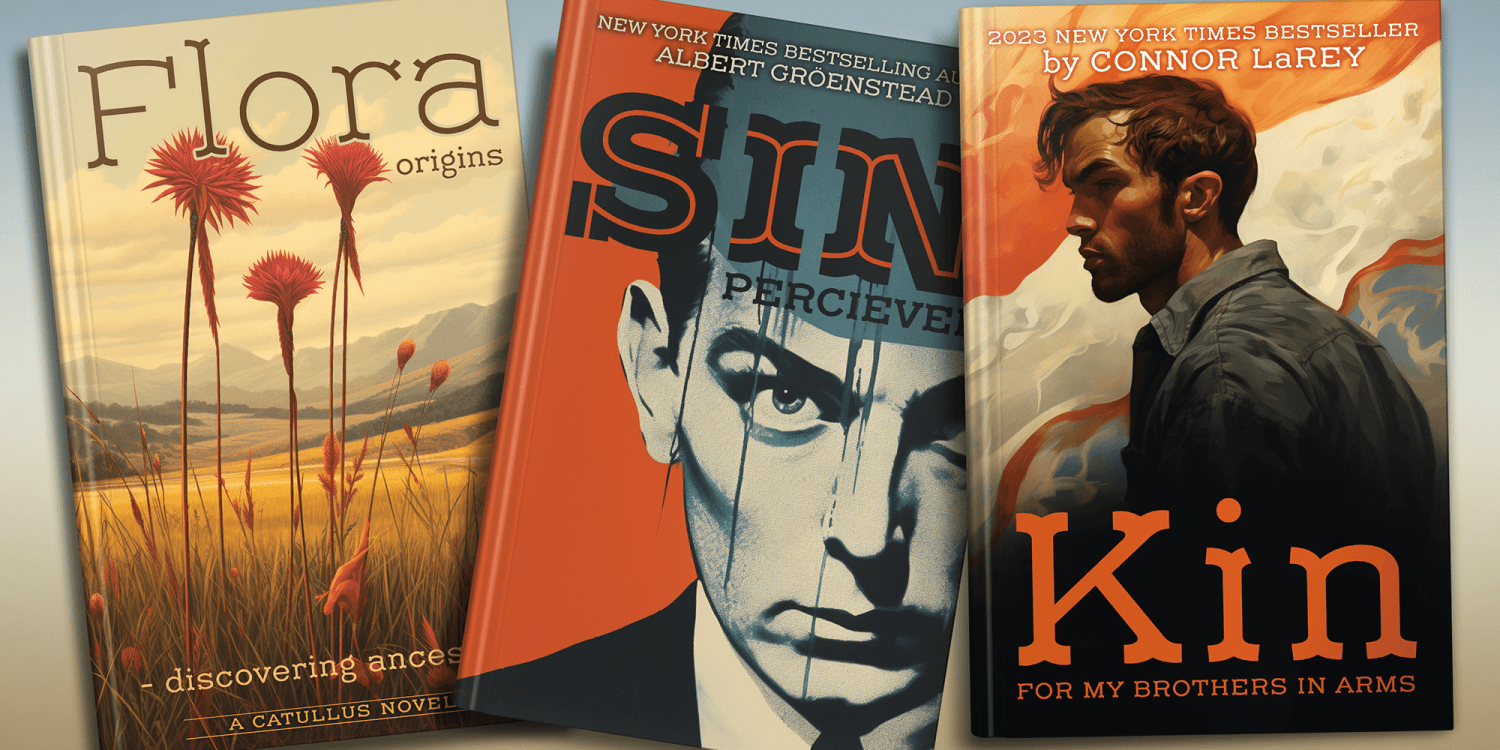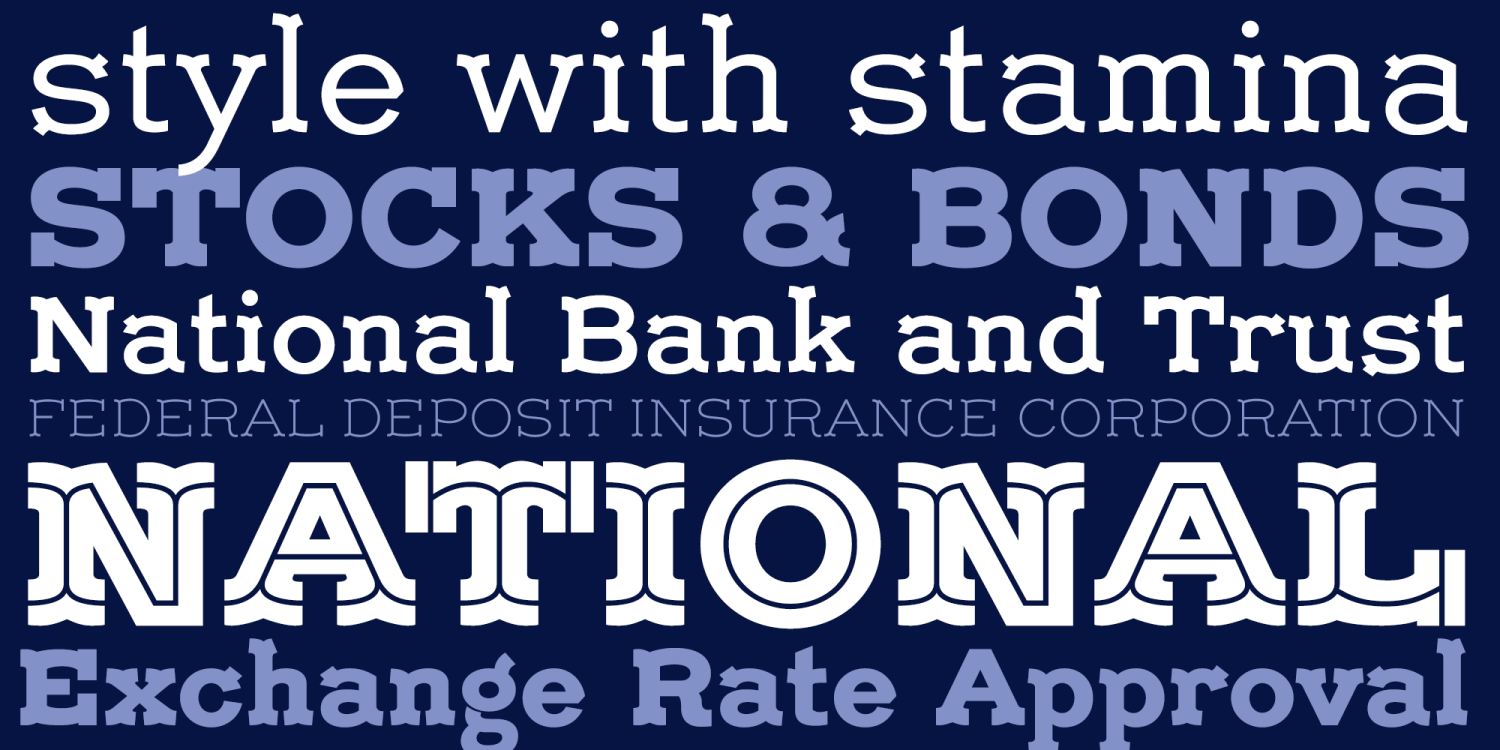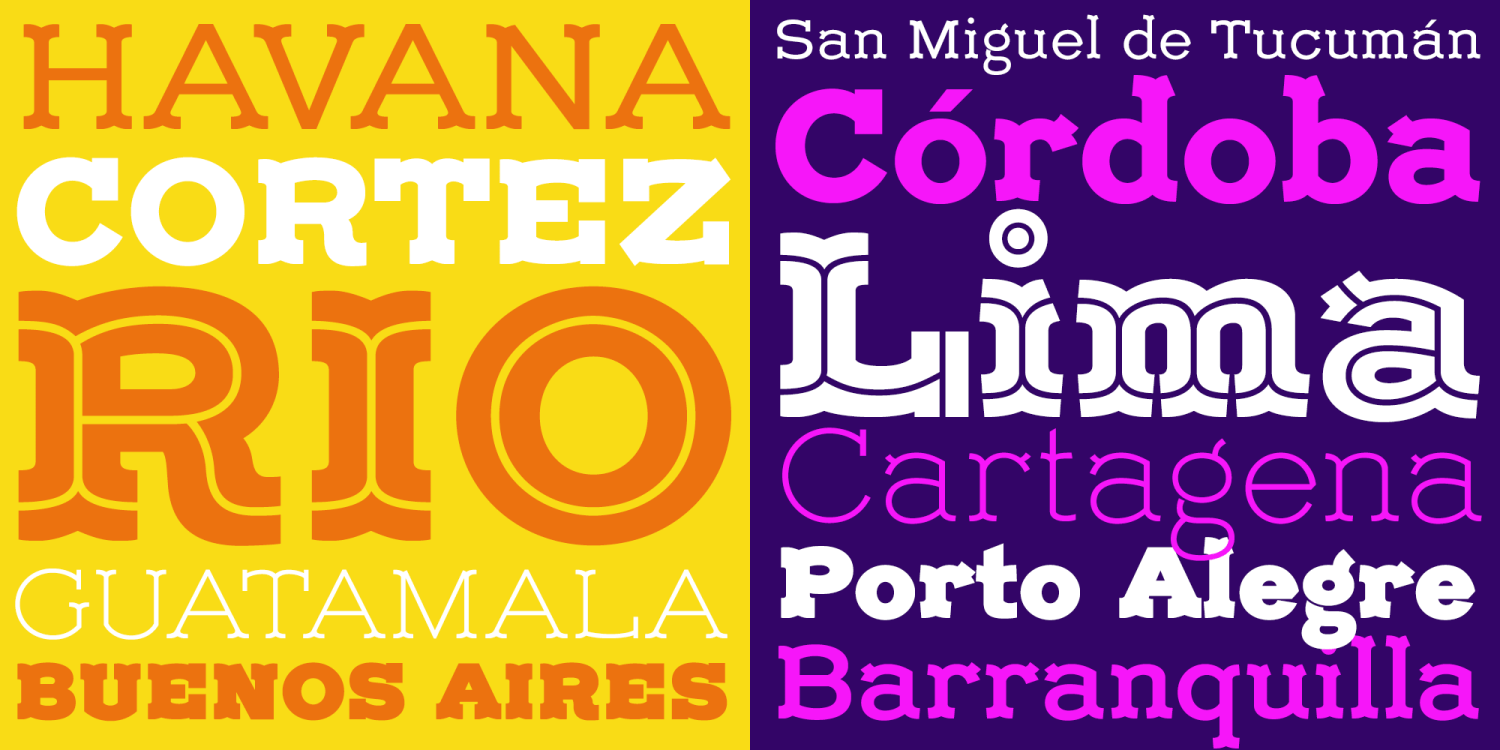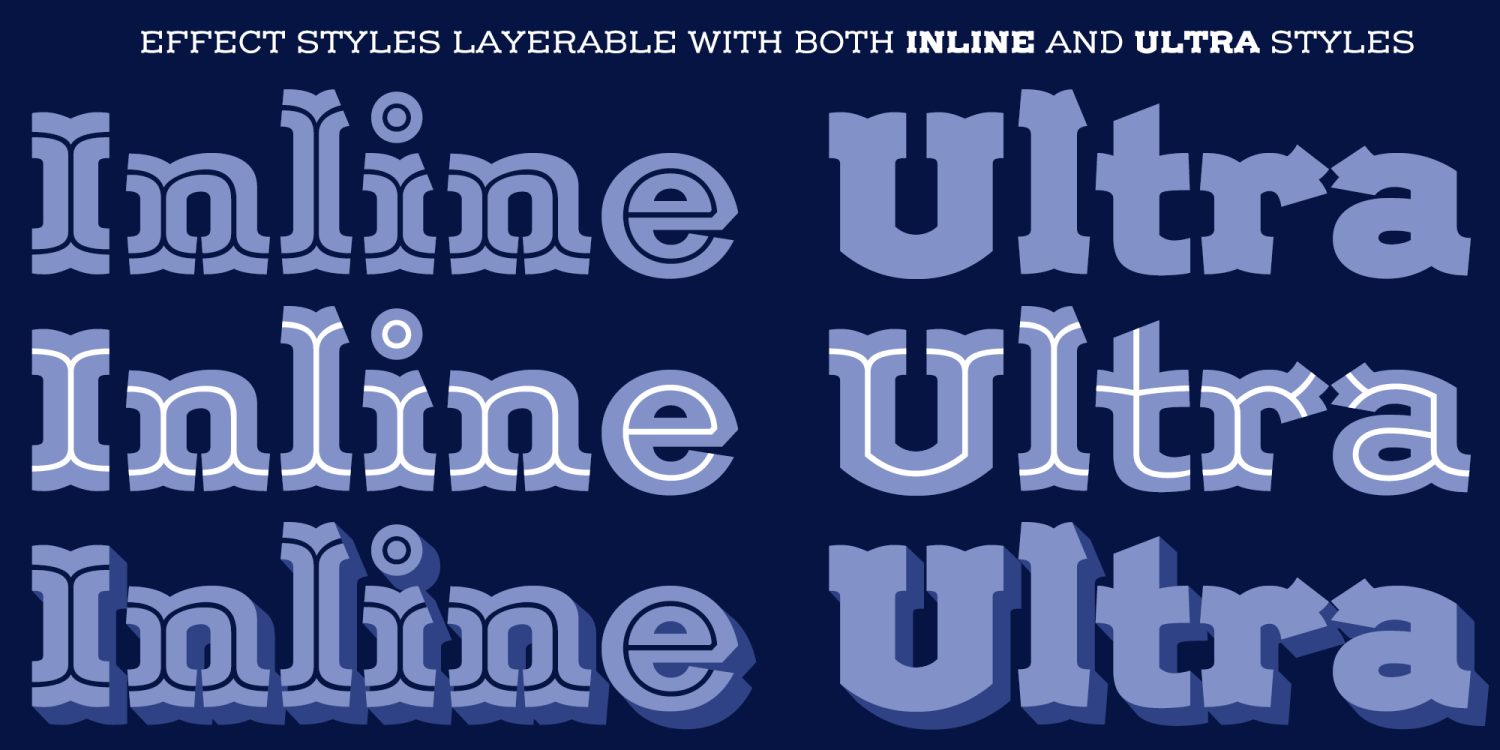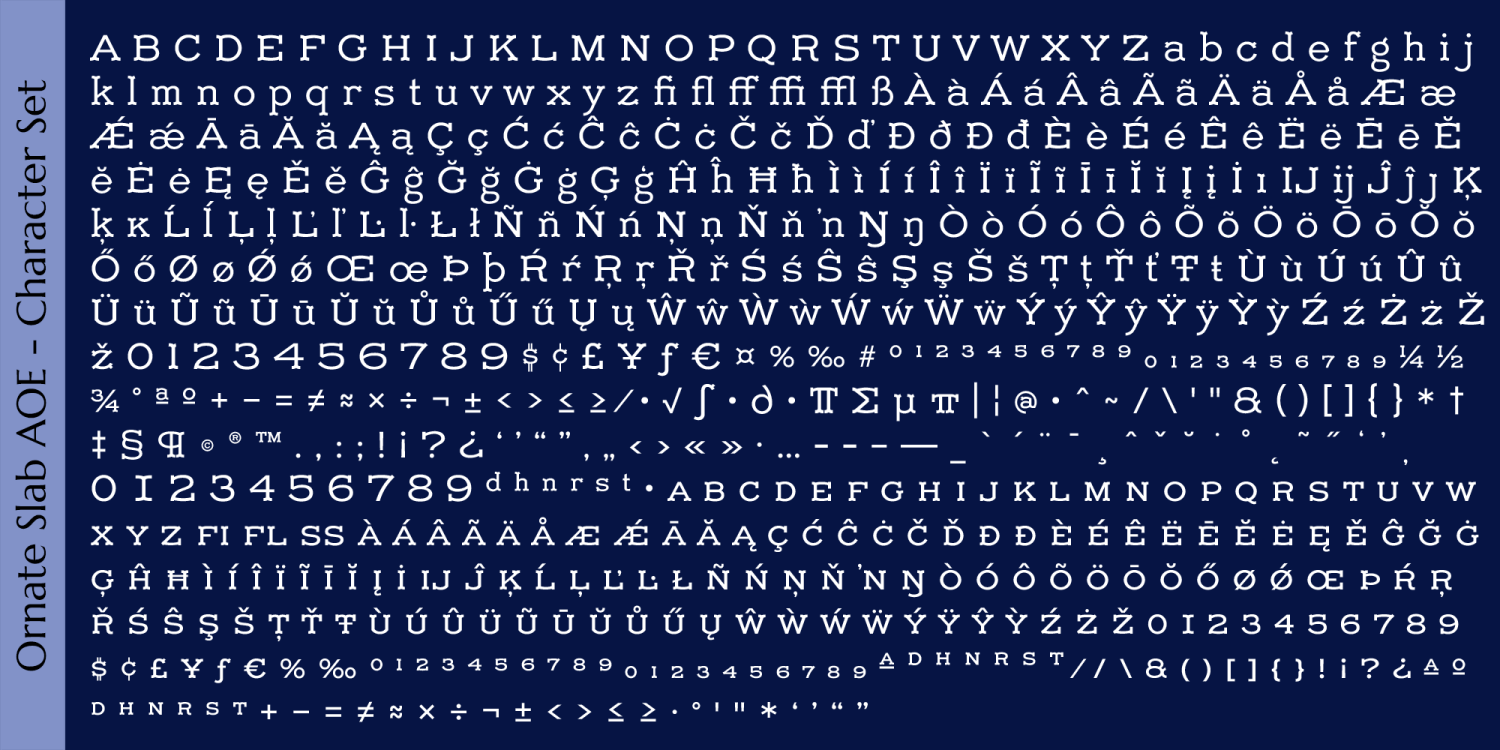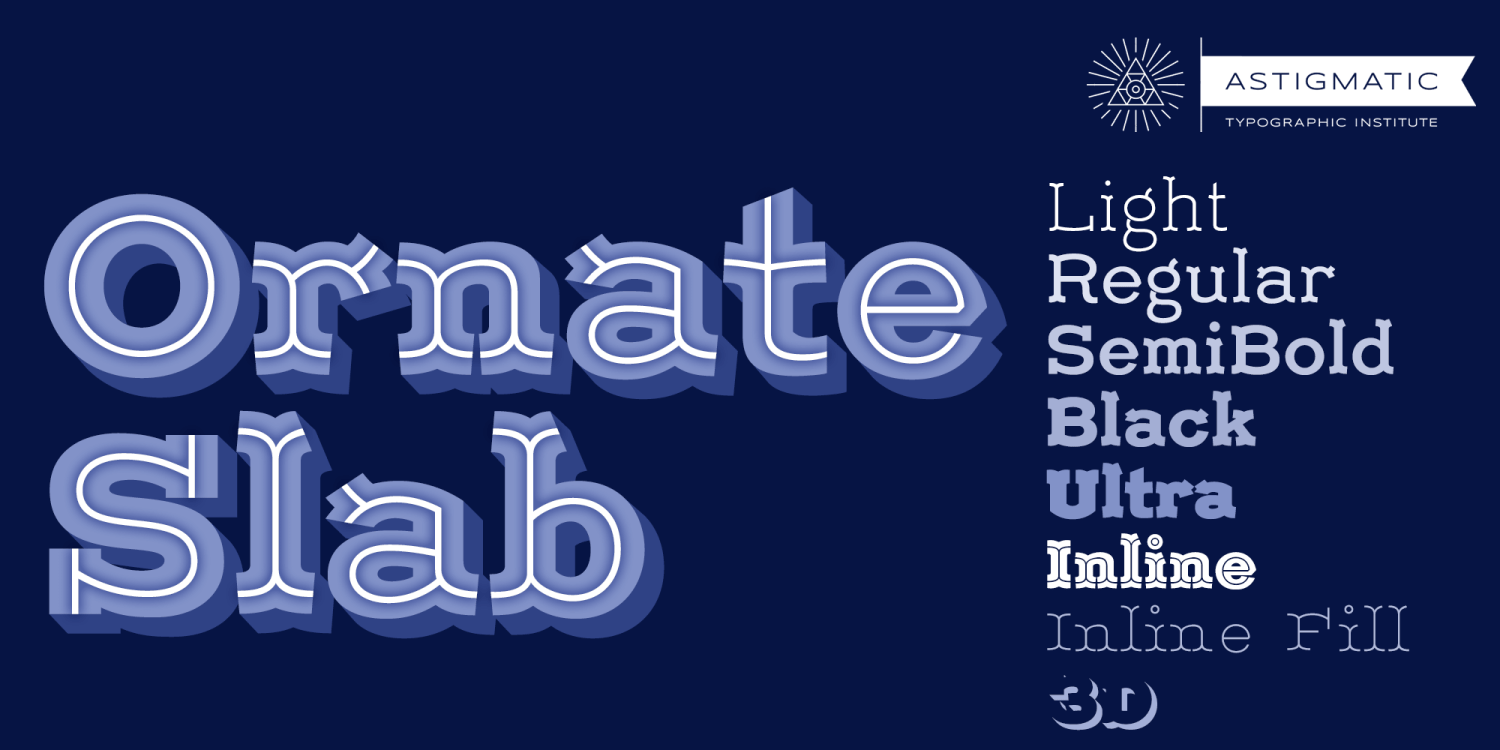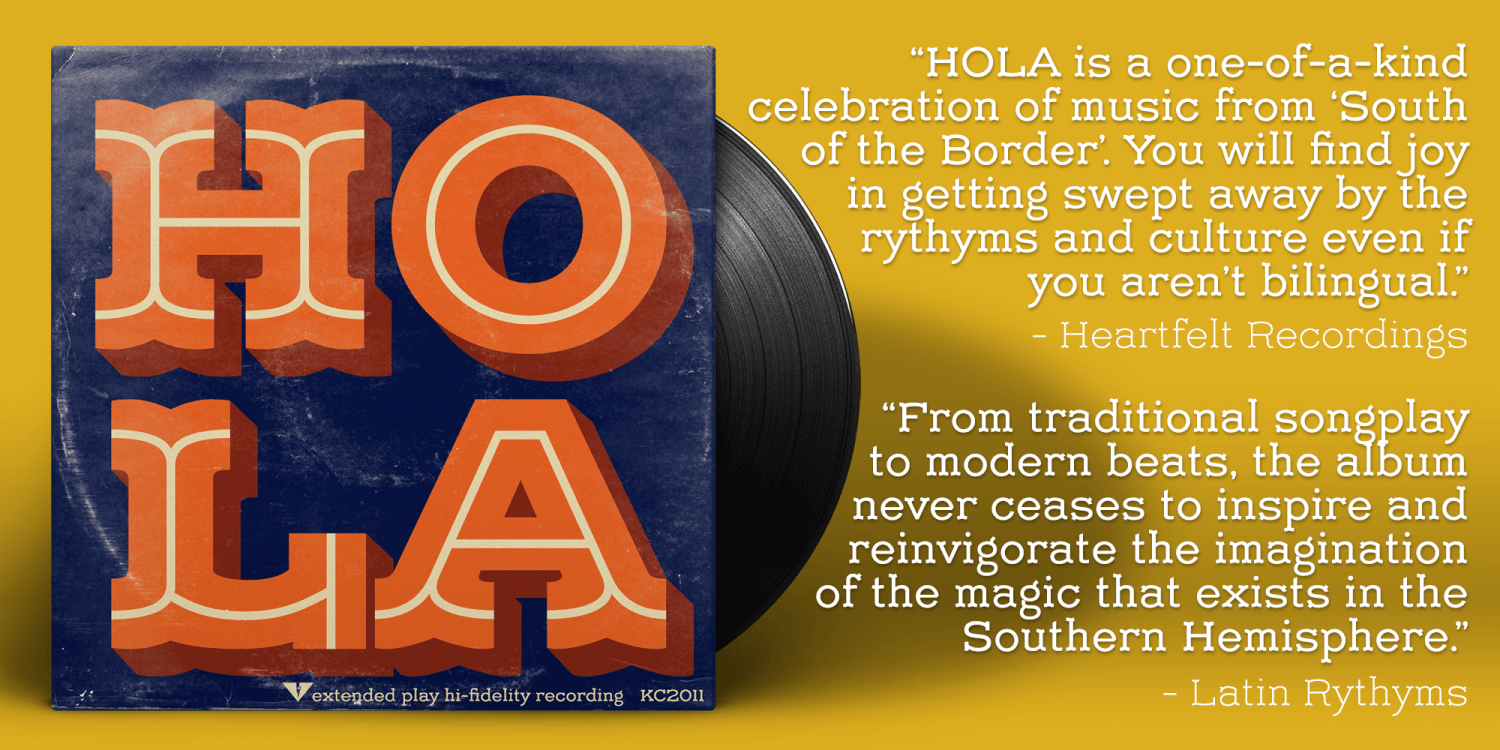
Ornate Slab
About Ornate Slab
The Ornate Slab Family originated in an old penmanship book as a single style/weight and has been digitally revived with a range of weights and effect styles to give your design loads of play. Great for nautical, cultural, or historical appeal design…